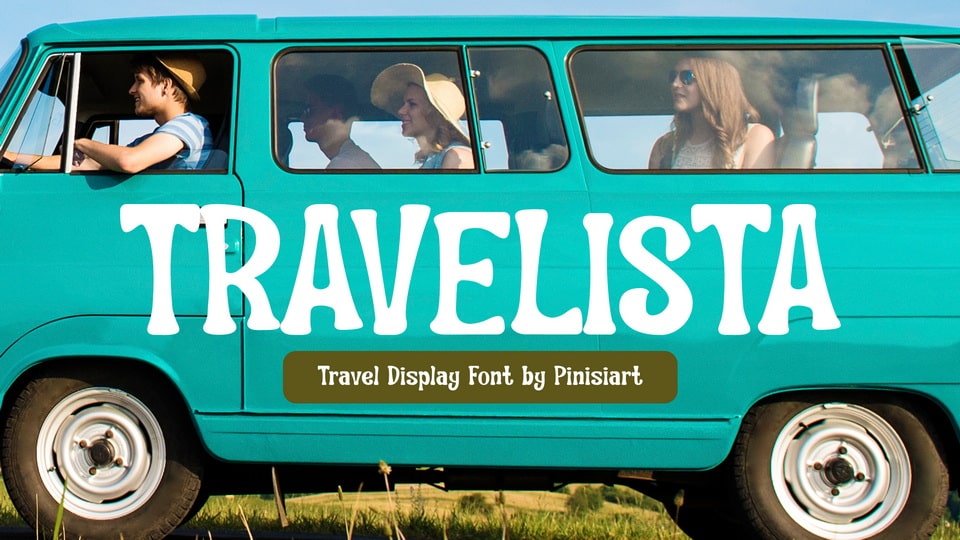
Download Travelista font, a vacation display typeface. When you think of a getaway from these hectic working days, then Travelista will make that dream come true.